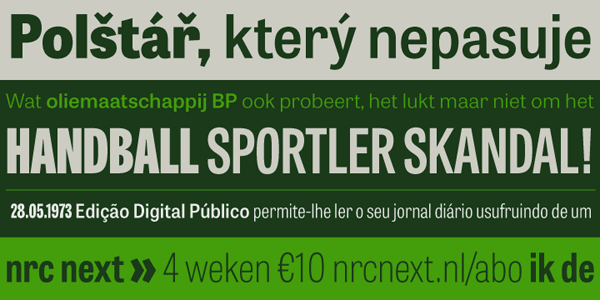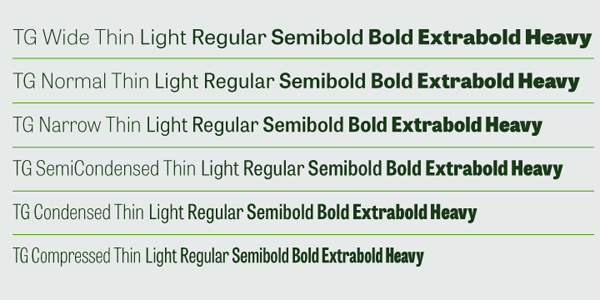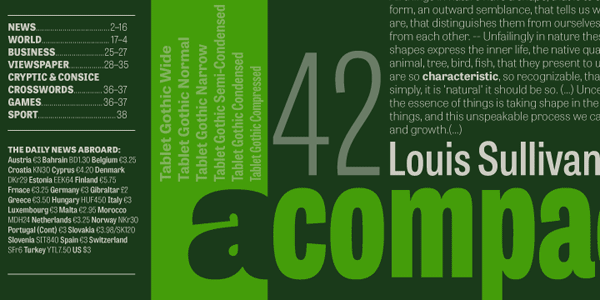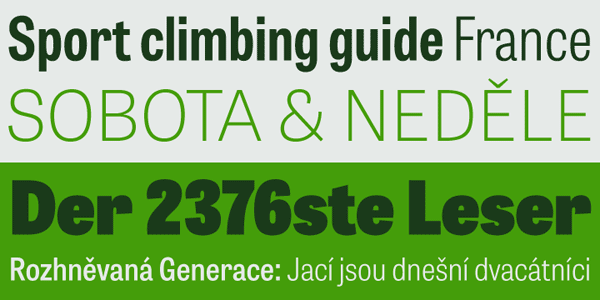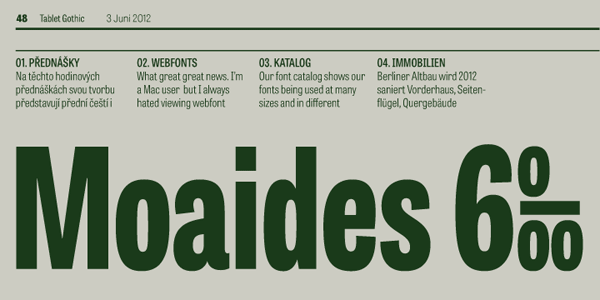
Tablet Gothic – Sans Serif Type Family.
Tablet Gothic was designed by Veronika Burian and José Scaglione (Font Foundry: TypeTogether). The aim was to create a font family specifically for print publications and a all possible digital platforms at the same time. The result was a grotesque sans serif font with a clear typeface and good readability. Tablet Gothic combines the sturdy and straightforward appearance of a typical grotesque typeface with unique personality to make it stand out on your page layout. The extensive font family consists of 84 styles (6 different series with 7 weights in each series plus matching obliques). The complete Tablet Gothic font family is available as Webfont and Desktop font.